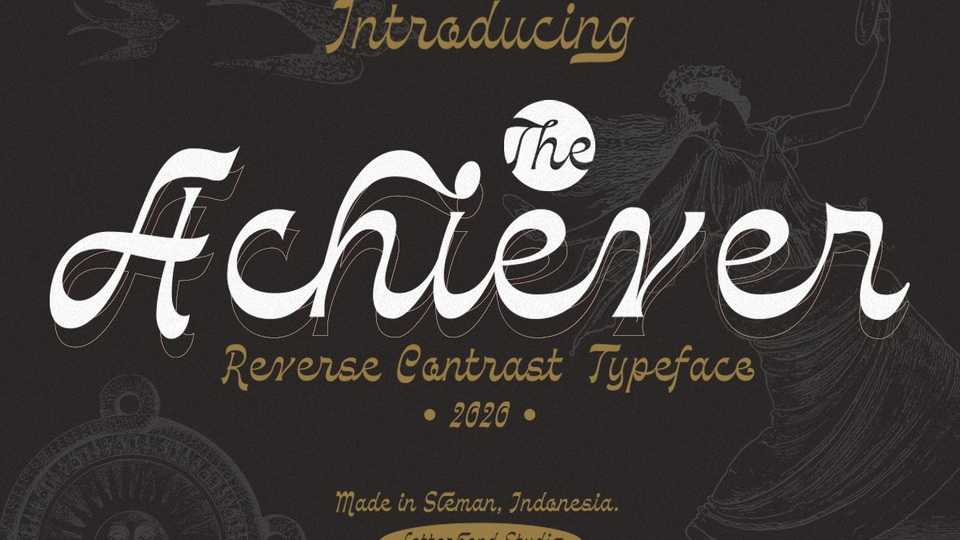
Download The Achiever font, a unique display script with reverse contrast. The unusual reverse contrast make Achiever one of a kind to use for logo, branding, labels or any type of advertising purpose.